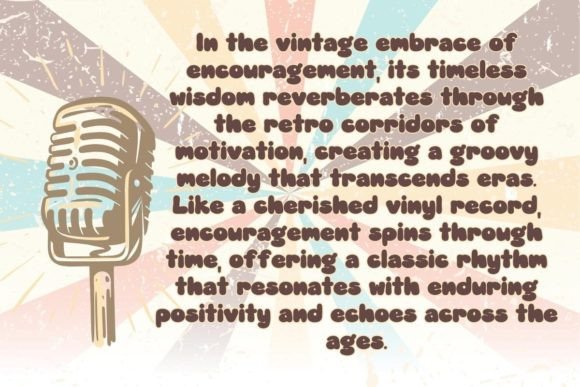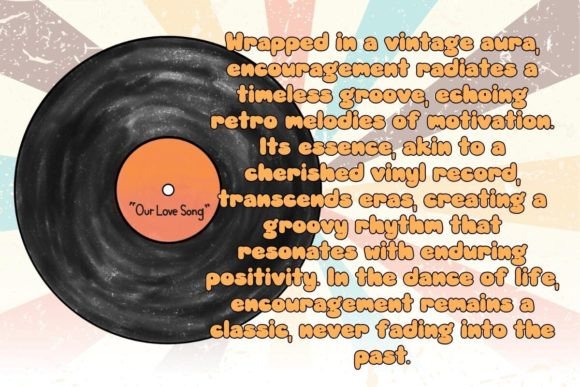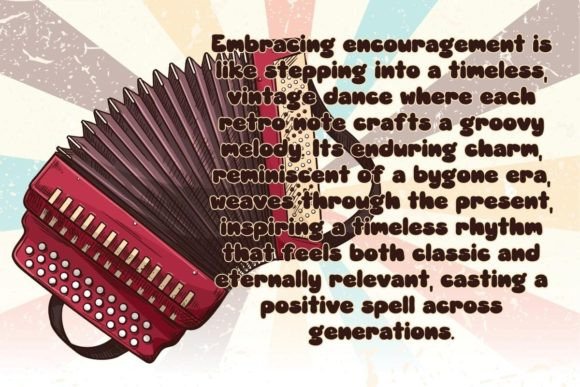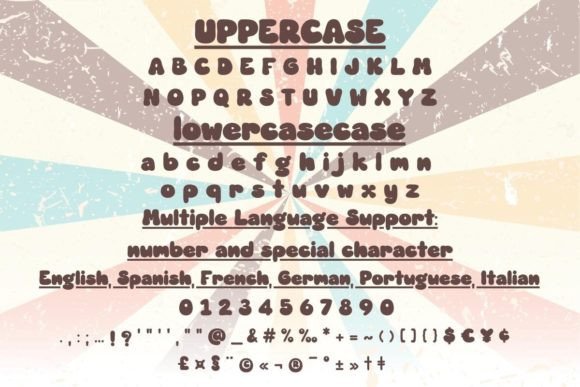
Groovy Retro Font: Where Nostalgia Meets Modern Flair
Are you a designer or crafter looking to add a touch of nostalgia to your projects? Look no further than Groovy Retro, a font that perfectly blends vintage charm with contemporary style. This exciting new font is sure to elevate your designs and capture the essence of a bygone era, while still feeling fresh and relevant.
The Power of Retro Fonts
Retro fonts have been gaining popularity in recent years, and it’s easy to see why. They evoke a sense of nostalgia and playfulness, transporting us back to a simpler time. Whether you’re designing a logo, creating a craft project, or working on a marketing campaign, a retro font can add a unique and eye-catching touch. But with so many retro fonts out there, it can be hard to find one that stands out from the crowd.
Introducing Groovy Retro
Groovy Retro is a one-of-a-kind font that embodies the spirit of nostalgia and chic retro vibes. Its vibrant personality is sure to make your designs pop, and its unique blend of vintage and modern elements ensures that it will never go out of style. Whether you’re creating a vintage-inspired poster, a funky t-shirt design, or a stylish logo, Groovy Retro is the perfect choice.
Key Features of Groovy Retro
- Unique blend of nostalgia and modernity: Groovy Retro seamlessly blends vintage charm with contemporary flair, making it perfect for designers and crafters who want to create unique and eye-catching projects.
- Vibrant personality: This font is sure to add a touch of fun and playfulness to your designs, making it perfect for projects that require a bit of personality.
- Highly versatile: Groovy Retro can be used for a wide range of projects, from logos and posters to t-shirt designs and more.
- Easily readable: Despite its retro vibe, Groovy Retro is highly readable, making it perfect for both digital and print projects.
How to Use Groovy Retro in Your Designs
Groovy Retro is incredibly easy to use, and can be incorporated into a wide range of design projects. Here are a few ideas to get you started:
- Logos and branding: Use Groovy Retro to create a unique and eye-catching logo that will help your brand stand out from the crowd.
- Posters and flyers: Add a touch of nostalgia to your posters and flyers with Groovy Retro, perfect for promoting events, products, or services.
- T-shirt designs: Create fun and funky t-shirt designs with Groovy Retro, perfect for casual wear or as a promotional item.
- Digital projects: Use Groovy Retro in your digital projects, such as social media graphics, email headers, or website titles.
Tips for Pairing Groovy Retro with Other Fonts
While Groovy Retro is a stunning font on its own, it can also be paired with other fonts to create a unique and eye-catching look. Here are a few tips for pairing Groovy Retro with other fonts:
- Pair with a sans-serif font: Pairing Groovy Retro with a sans-serif font, such as Arial or Helvetica, can create a fun and modern contrast.
- Pair with a script font: Pairing Groovy Retro with a script font, such as Pacifico or Great Vibes, can add a touch of elegance and sophistication.
- Experiment with font sizes: Don’t be afraid to experiment with different font sizes to create visual interest and hierarchy in your designs.
| Font Name | Groovy Retro Font |
| Author | charmingbear59.design |